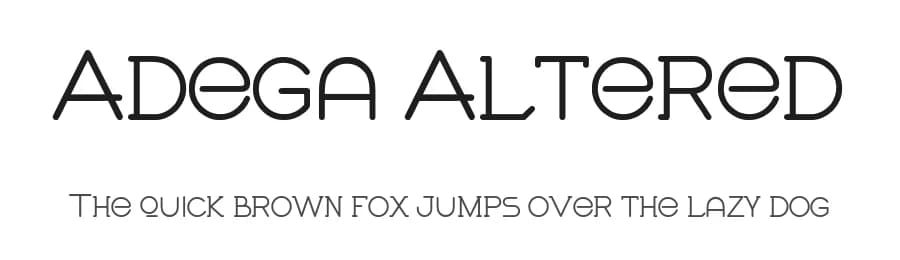
About Adega Altered Font
ADega Altered
Anisio Dega
| Font Family | Adega Altered |
| Designer | Anisio Dega |
Adega Altered Font is a versatile sans-serif font that works for both headings and body text. Pair it with a contrasting serif or slab serif font to add visual interest and a clear distinction between titles and body copy.
Adega Altered Font
by Adega Design